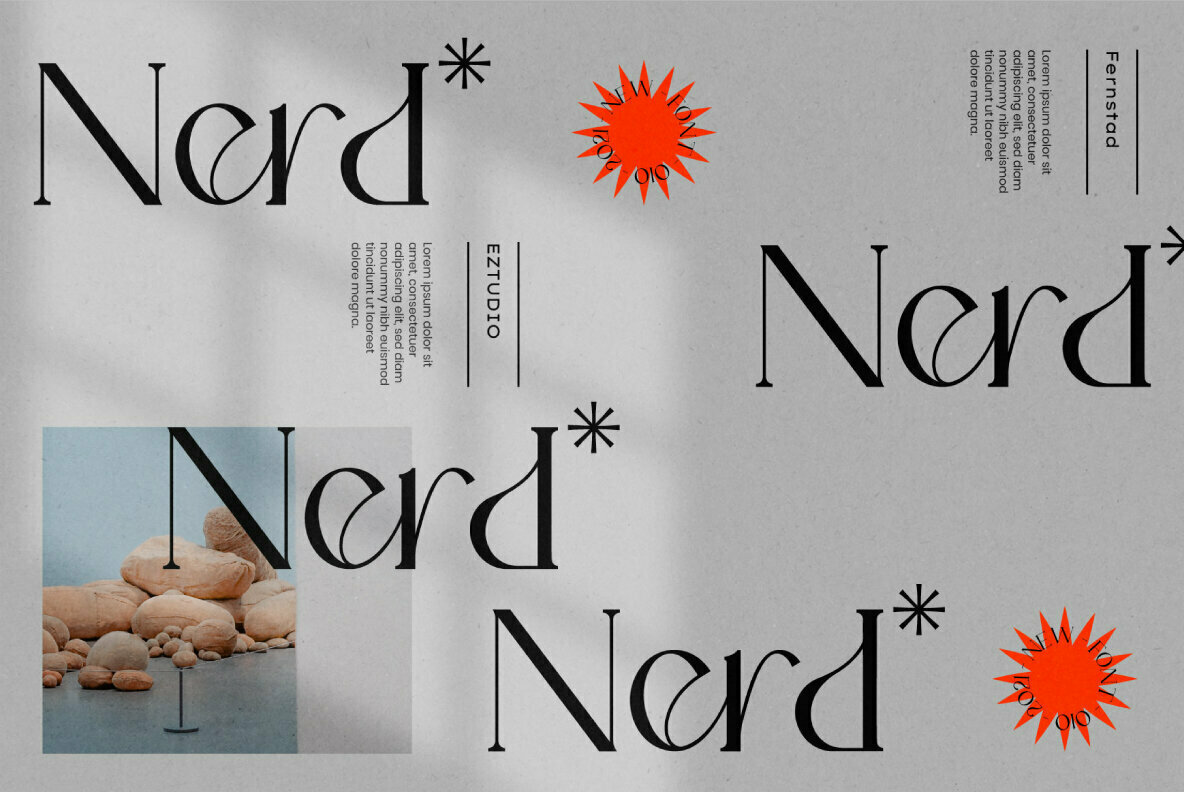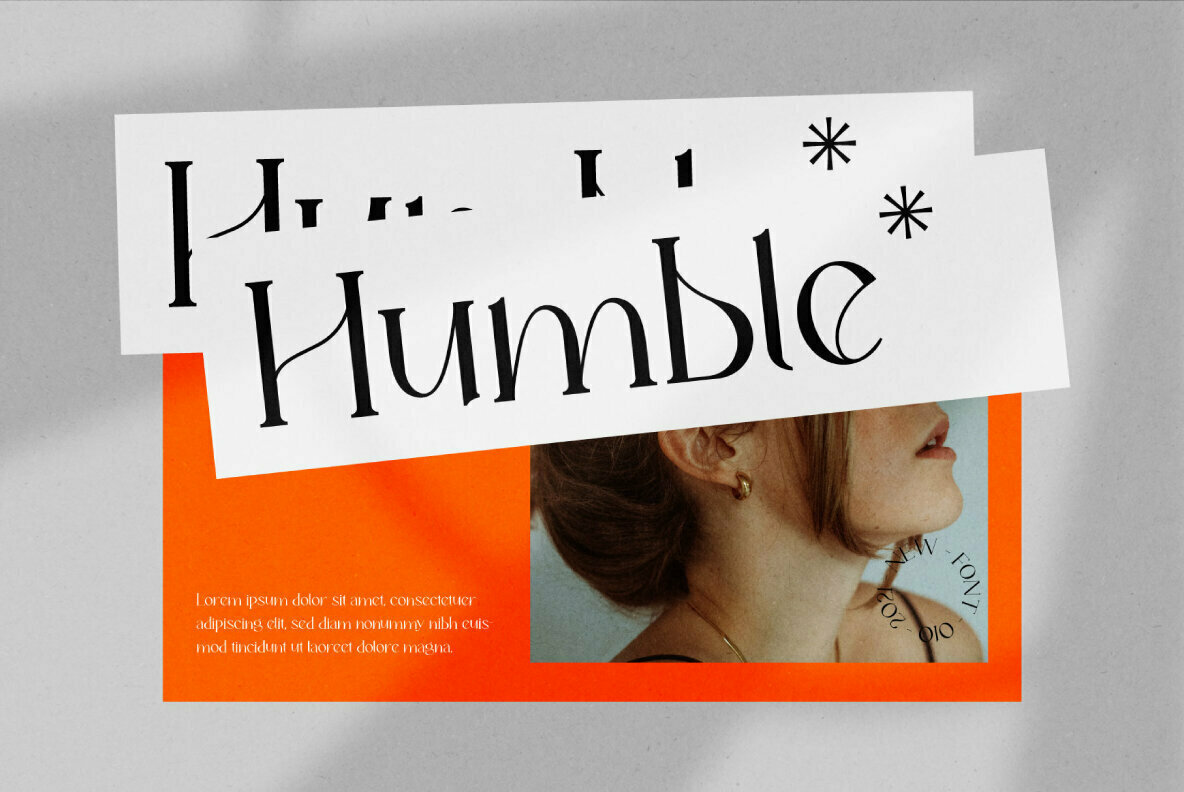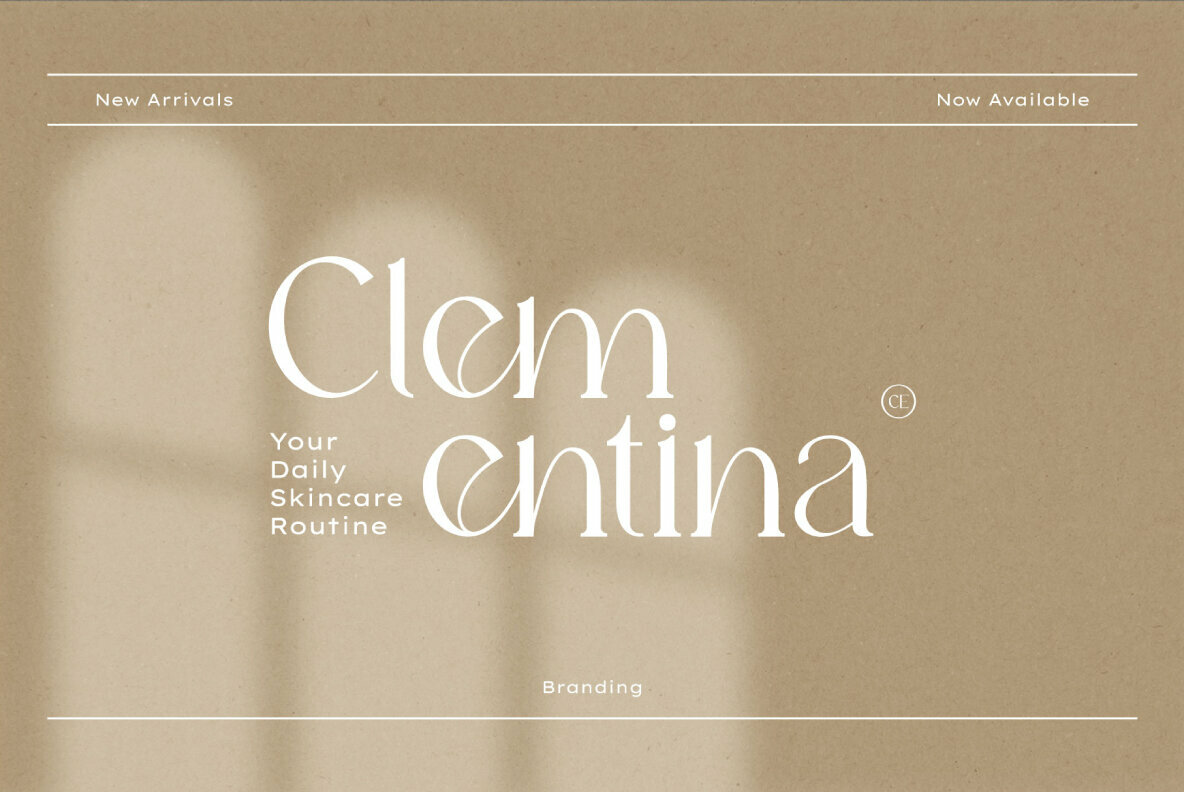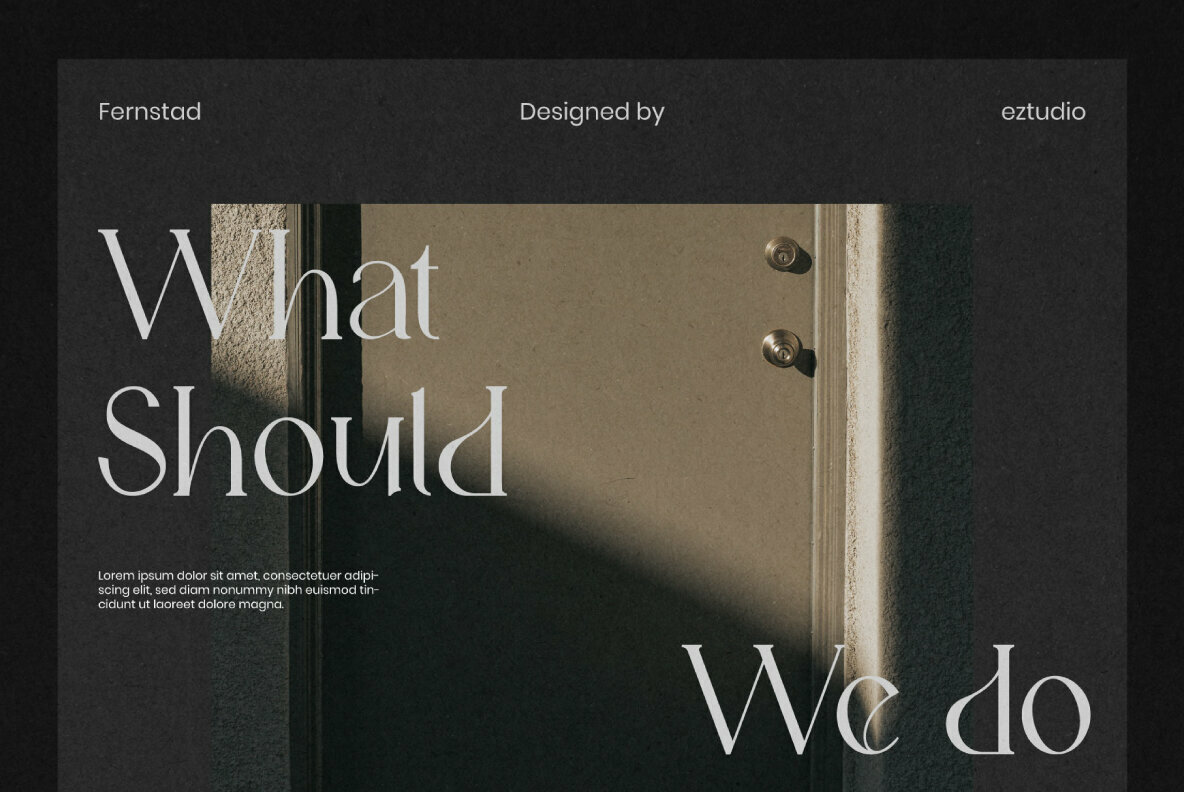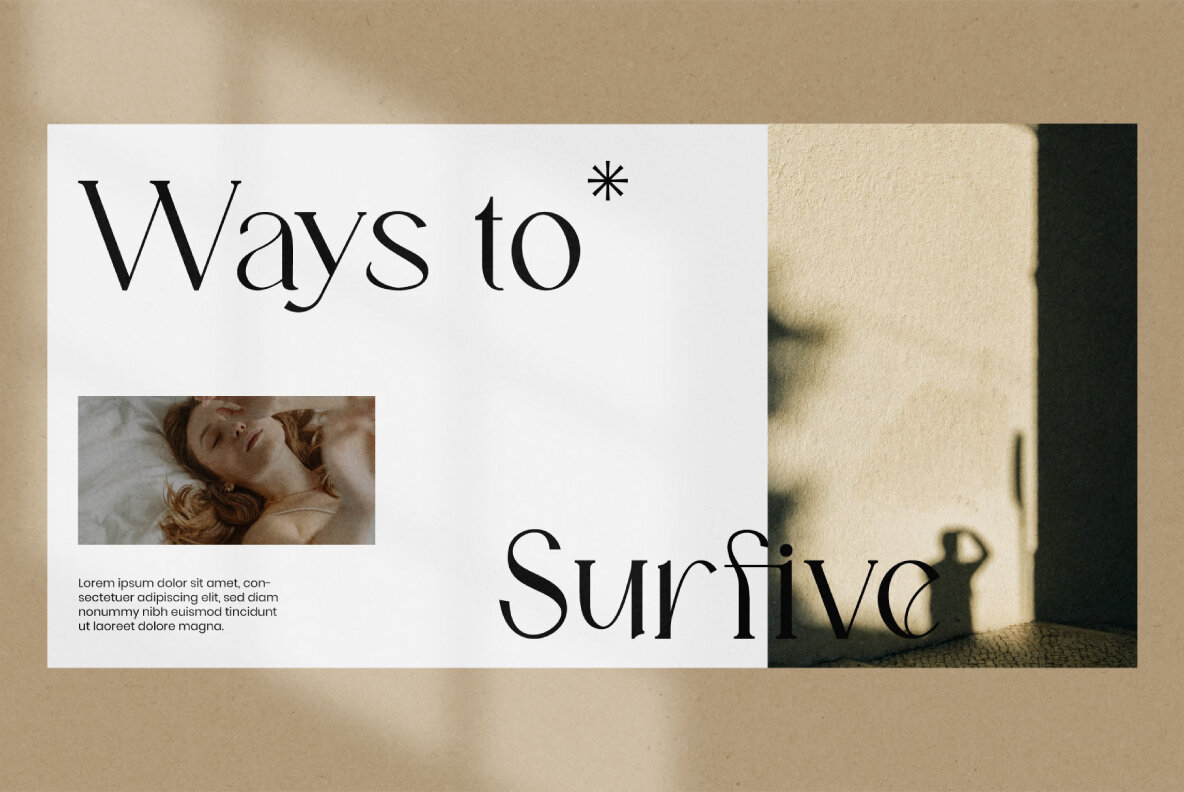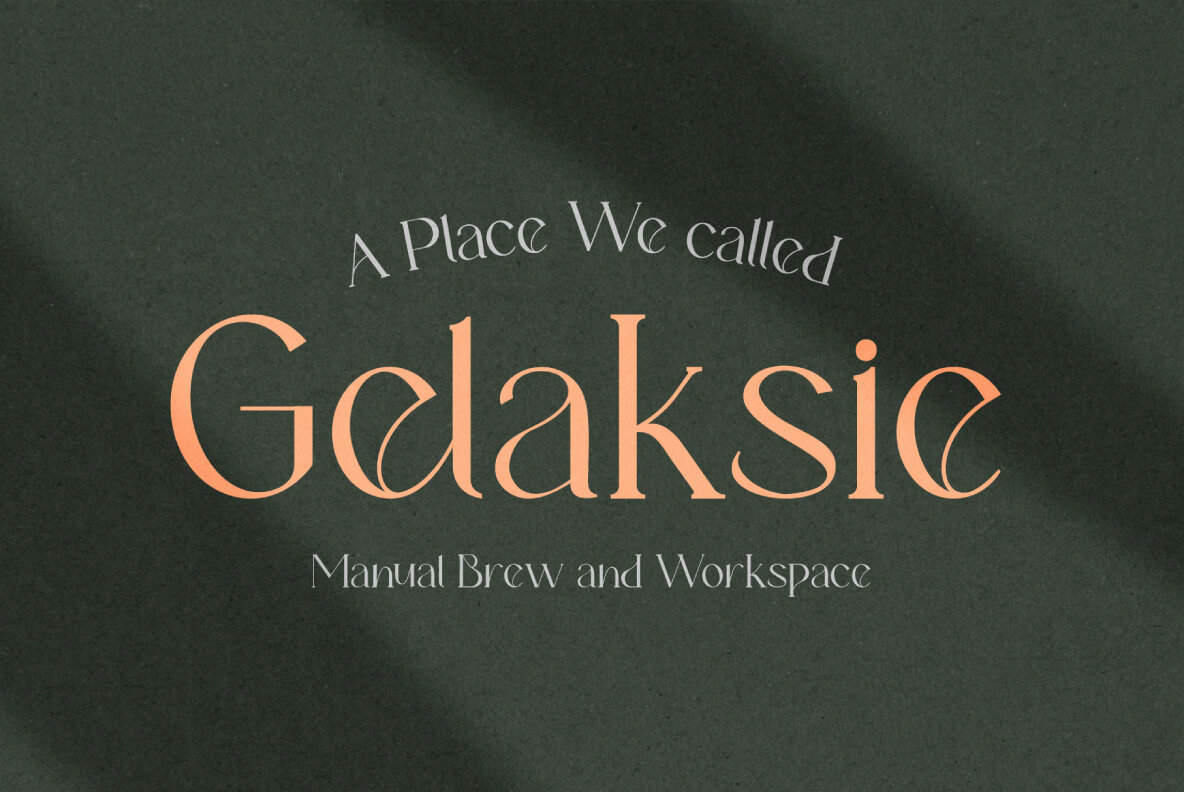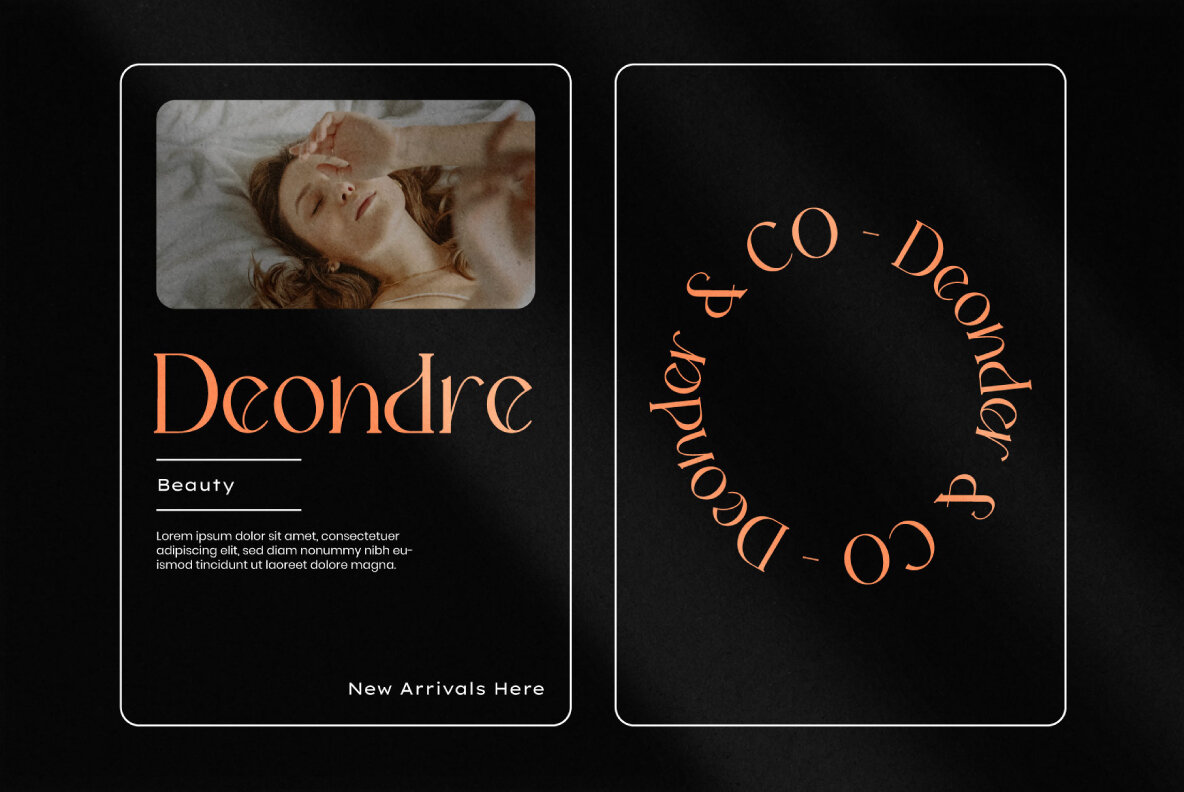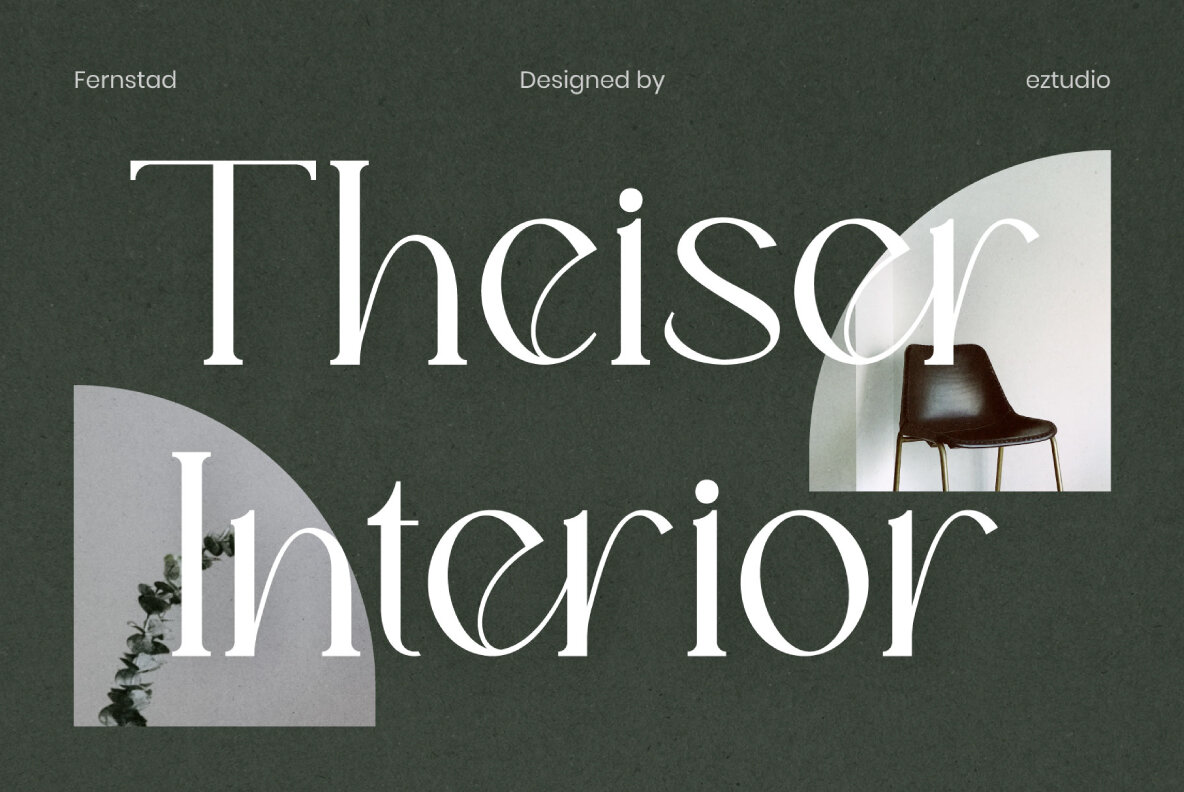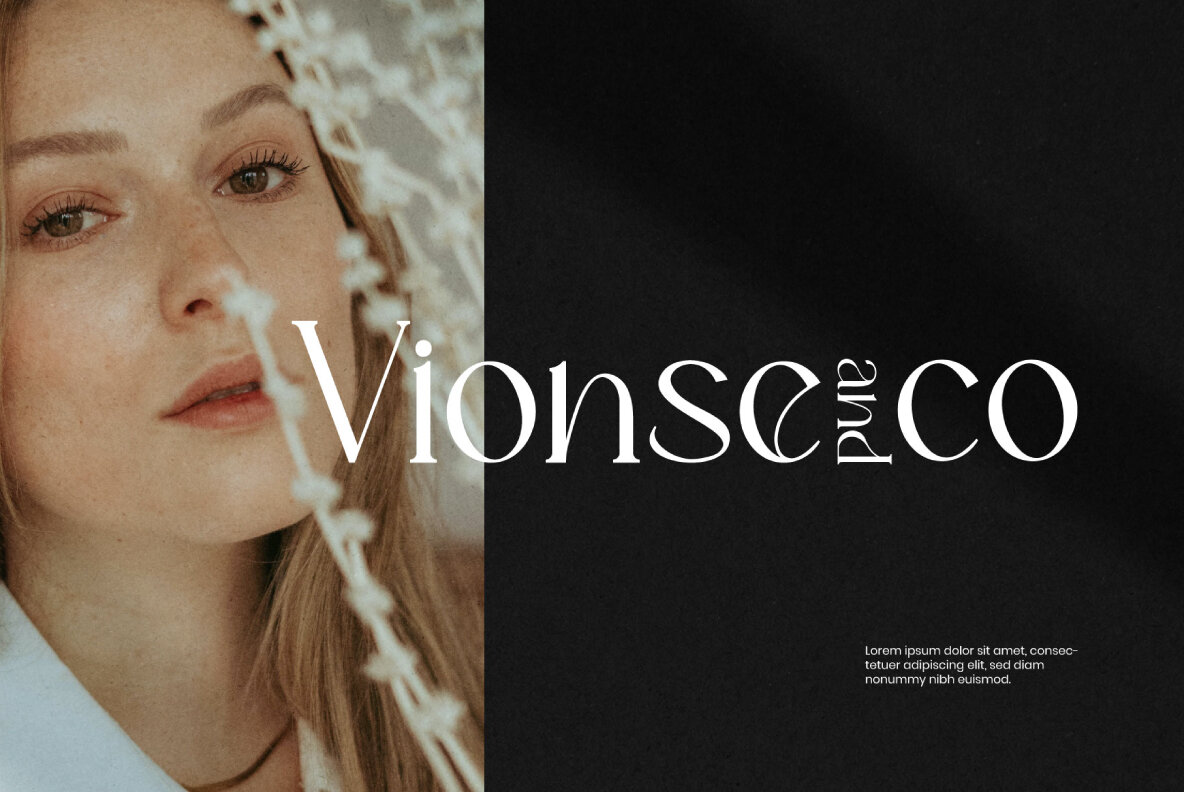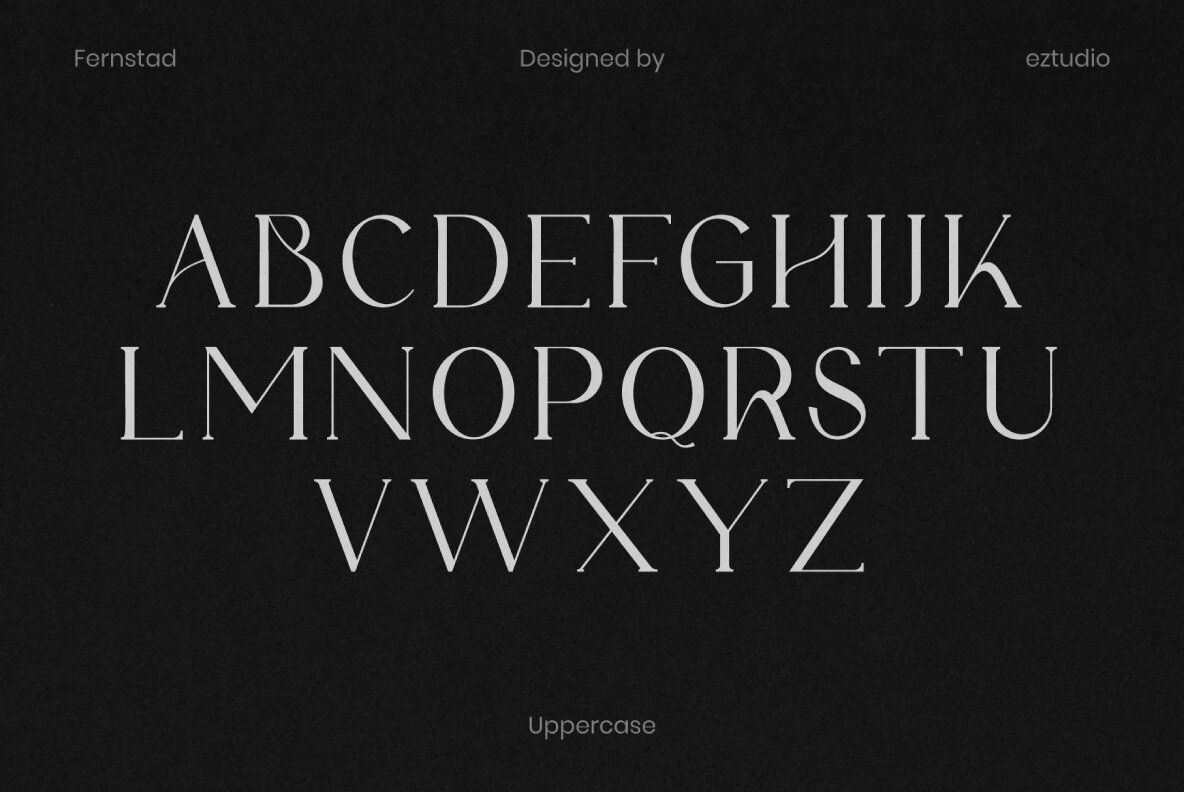
Fernstad Font
Fernstad
Fernstad, a creation of Muhammad Faiz, stands out as a unique and stylish ligature font. It effortlessly combines elegance and modernity, making it an ideal choice for graphic designers seeking to infuse their projects with a contemporary flair.Fernstad: Elegant Ligatures with a Modern Twist